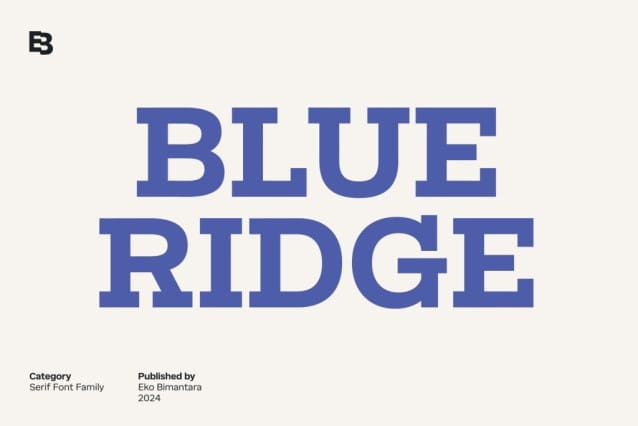
Blue Ridge Font
Blue Ridge Font is a bold and condensed slab serif font with classic and modern aesthetic style. This font adds a touch of timeless elegance and strength to your designs. Perfect for creating impactful quotes, posters, stylish t-shirts, mugs, sporty apparel, trendy tote bags, pillows and vibrant jerseys.